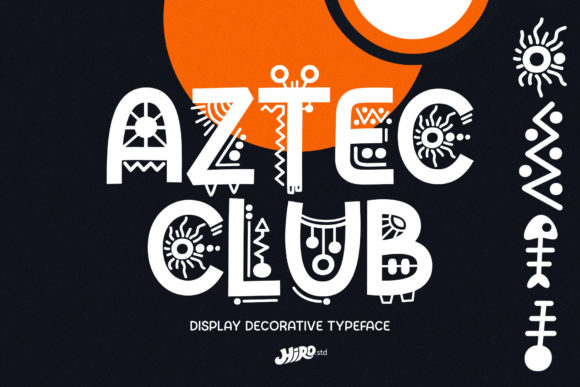
Introducing Aztec Club Font: Your Gateway to a Bold and Distinctive Design Realm
In a world clamoring for attention, your designs deserve to stand out with an air of exclusivity and flair. Enter Aztec Club Font - a display and decorative typeface meticulously crafted to infuse your creations with a captivating blend of style, ethnicity, and individuality.
Aztec Club Font: A Visual Symphony of Style and Originality
As a display font, Aztec Club Font thrives in creating captivating headlines, logotypes, and other prominent text elements. Its distinct ethnic influences, reminiscent of diverse cultures and subcultures from around the globe, lend an air of pride and heritage to your designs.
But Aztec Club Font is more than just a pretty face. Its carefully crafted characters exude an easy-to-use charm, making it a versatile tool for designers of all skill levels. Whether you're a seasoned professional or just starting your design journey, Aztec Club Font is your key to unlocking a realm of creative possibilities.
Unlock the Power of Aztec Club Font: A Font for Every Occasion
From the vibrant energy of apparel designs to the bold presence of posters and magazine layouts, Aztec Club Font effortlessly adapts to various media. Its versatility extends to décor items, where its unique style adds a touch of personality to any space.
Immerse yourself in a world of design distinction with Aztec Club Font. Let your imagination soar as you craft logotypes that command attention, headlines that demand readership, and apparel designs that ignite conversations.
Aztec Club Font: A Journey Through Culture and Creativity
Aztec Club Font is more than just a collection of characters; it's a gateway to a world where culture and creativity converge. Its inspiration, drawn from the ethnic pride and diverse subcultures of our planet, empowers you to infuse your designs with a sense of heritage and inclusivity.
Whether you're a designer seeking to elevate your branding or an individual yearning to express your unique style, Aztec Club Font is your perfect companion. Its stylish, prideful, and easy-to-use nature makes it the ideal choice for those who dare to stand out from the crowd.
Don't let your designs blend into the background. Embrace the captivating allure of Aztec Club Font and watch your creations transform into mesmerizing expressions of art and identity.